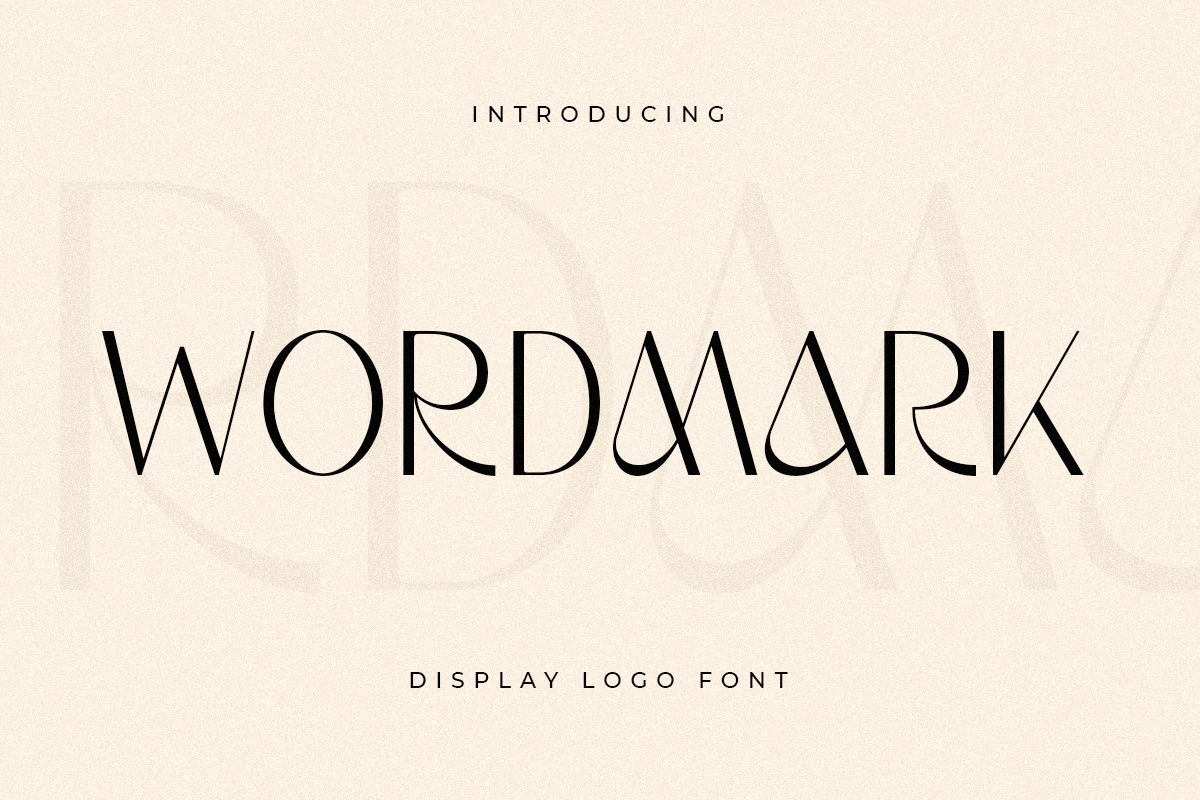
Wordmark - Display Logo Font
Elevate your brand with Wordmark – a sophisticated display font crafted for beauty and modern branding excellence. This unique display logo font delivers an elegant aesthetic with distinctive alternate characters that add premium value to your brand identity. Perfect for designers and brand owners seeking solutions that create beautiful, contemporary visual appeal. The Wordmark Display Logo font features creative alternate characters that unlock unlimited design variations for your projects. Eac...